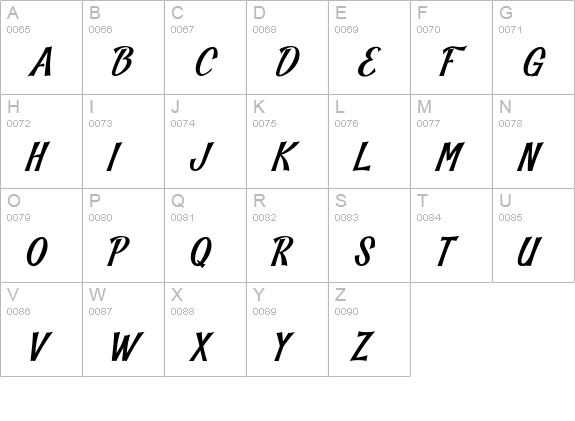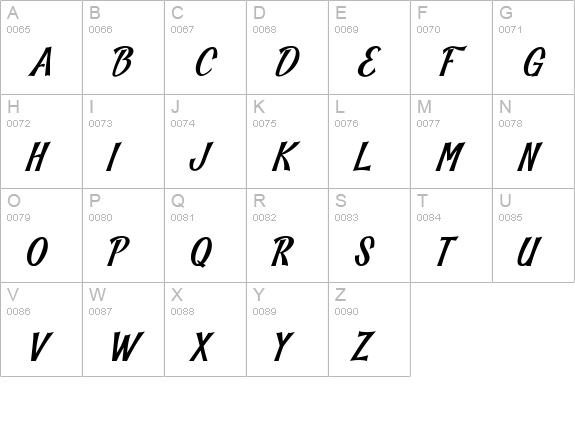
Blankeny is a demo font in the Script > Cursive category, designed by patria_typestudio. It has been downloaded 261 times and is available for Windows, Mac and Linux.
Blankeny font is a modern and stylish typeface that exudes elegance and sophistication. With its sleek lines and eye-catching curves, this font is perfect for creating stunning designs that demand attention. The versatility of Blankeny font makes it suitable for a wide range of projects, from branding and advertising to web design and social media graphics.